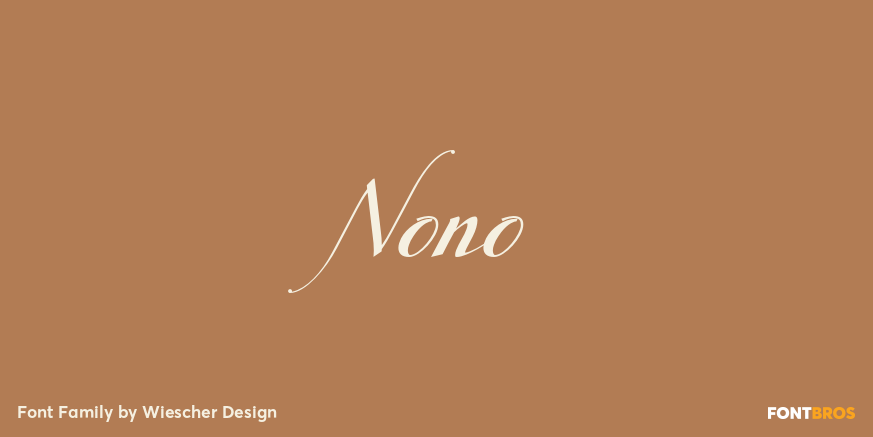
Nono
About Nono
Nono is the nickname of my oldest son, Konstantin. His little brother could not really speak yet, but he was always looking for him and said something to the tune of, ?wea is a nono?. From that time on I call Konstantin Nono. I designed a handwritten…